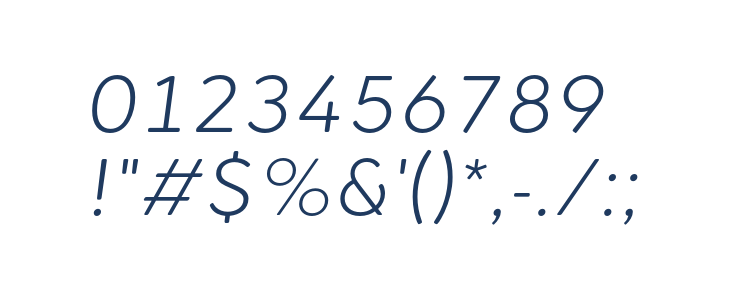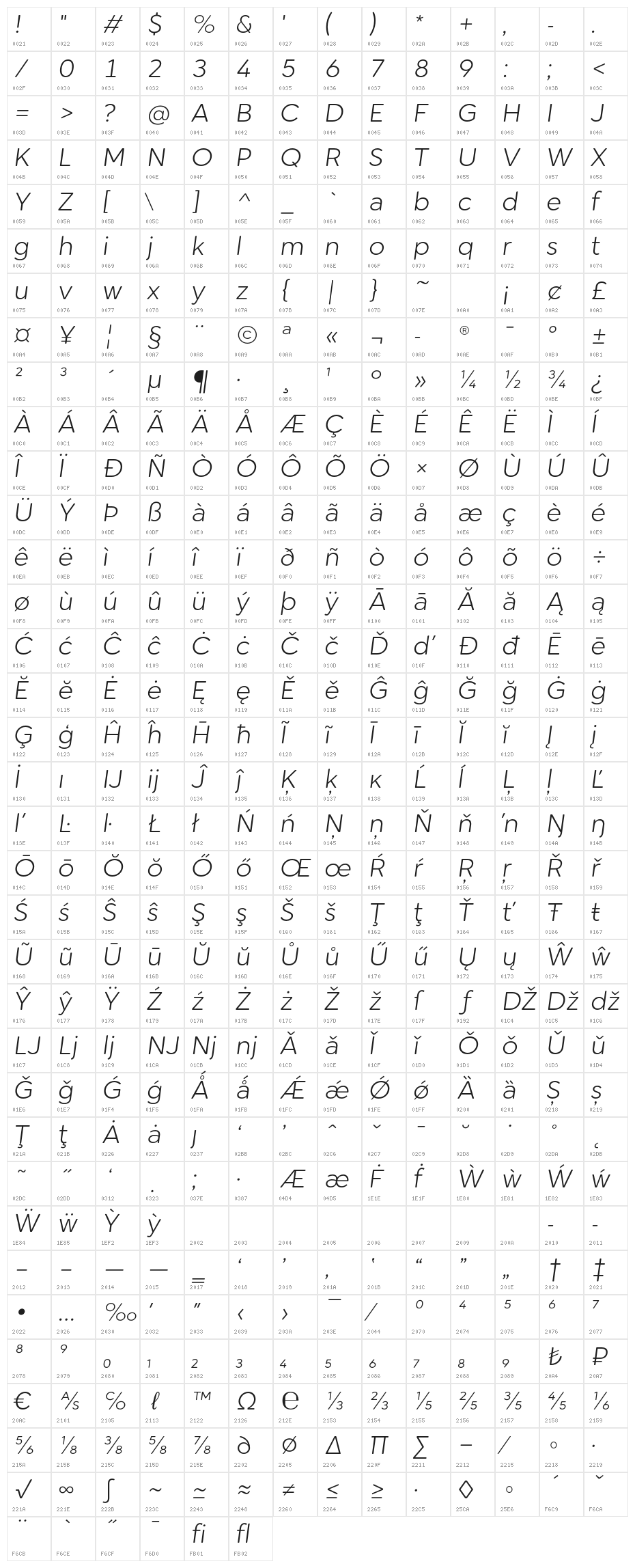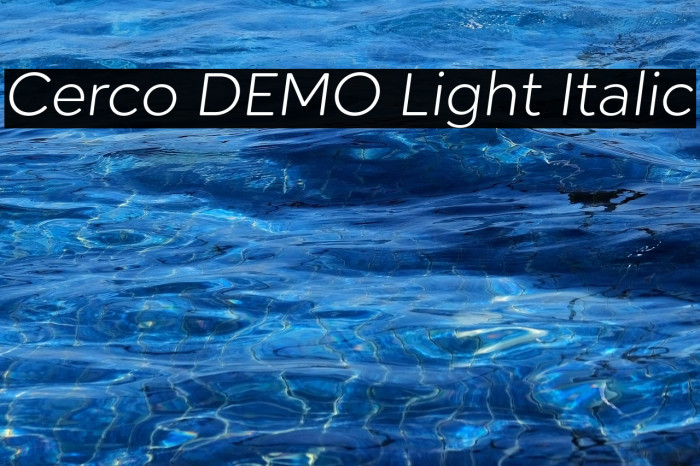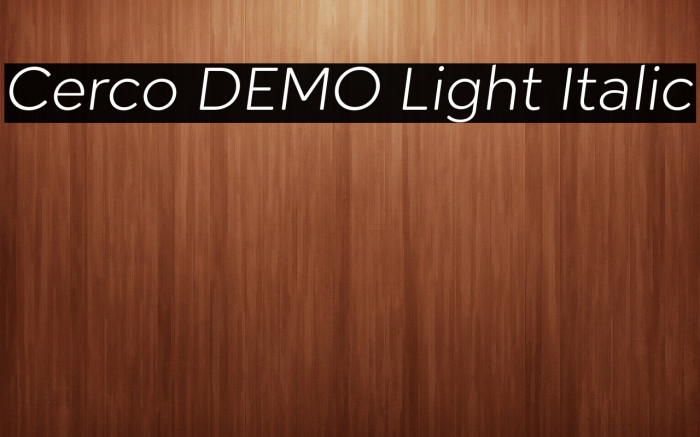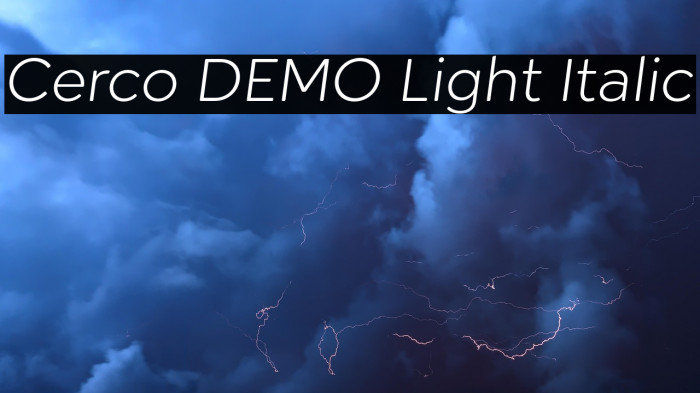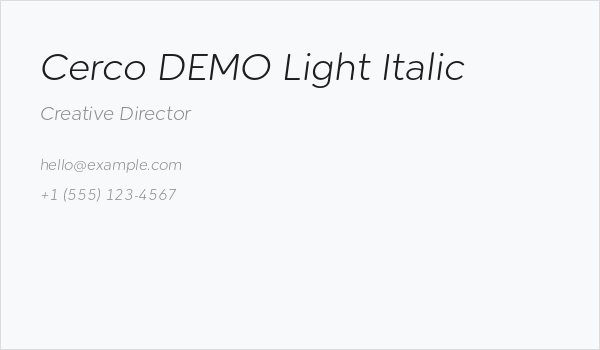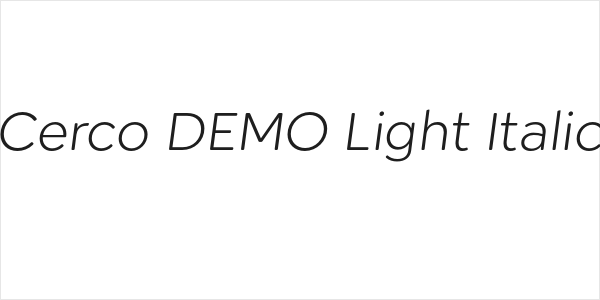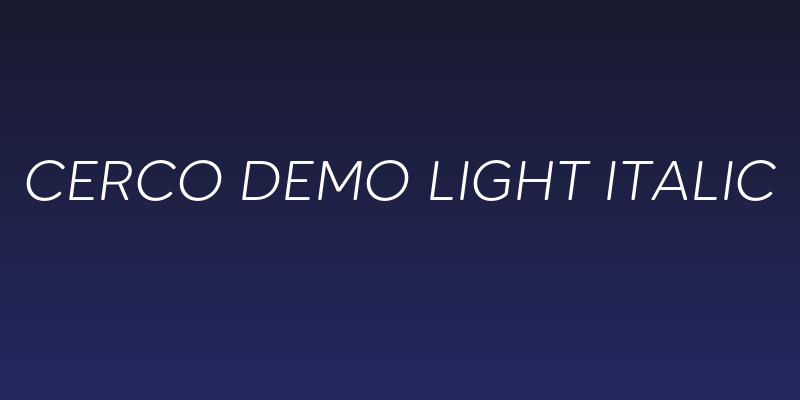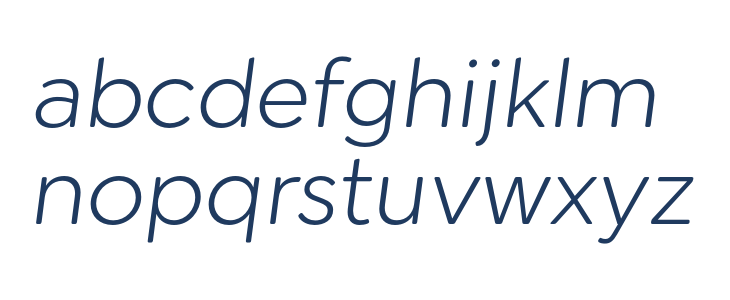
Cerco DEMO Light Italic Font
Cerco DEMO Light Italic Description
This font features a sleek and modern design with a light weight and italic style. The characters are elegantly slanted, providing a sense of motion and fluidity. The sans-serif design ensures a clean and uncluttered appearance, making it highly readable. The spacing between characters is normal, allowing for a balanced and harmonious look. The font's low contrast in stroke thickness contributes to its minimalist aesthetic, making it suitable for contemporary design projects. It includes a full set of uppercase and lowercase letters, numbers, and a variety of special characters, offering versatility for various applications.
| Proposed Projects | Ideal for modern branding, elegant invitations, minimalist websites, and stylish editorial design. |